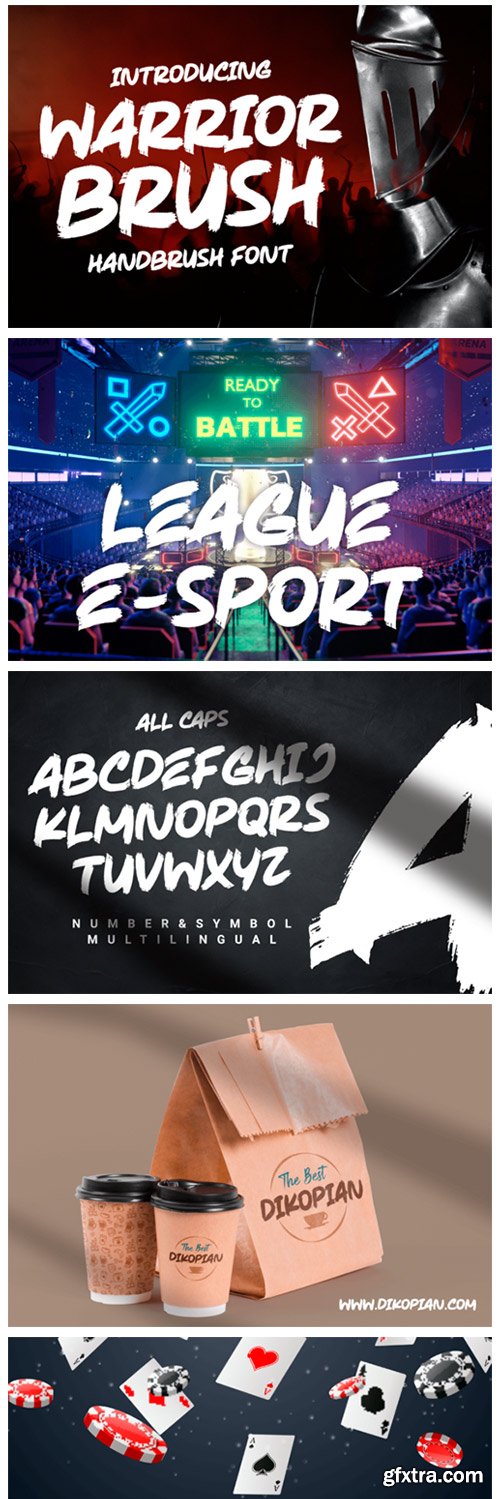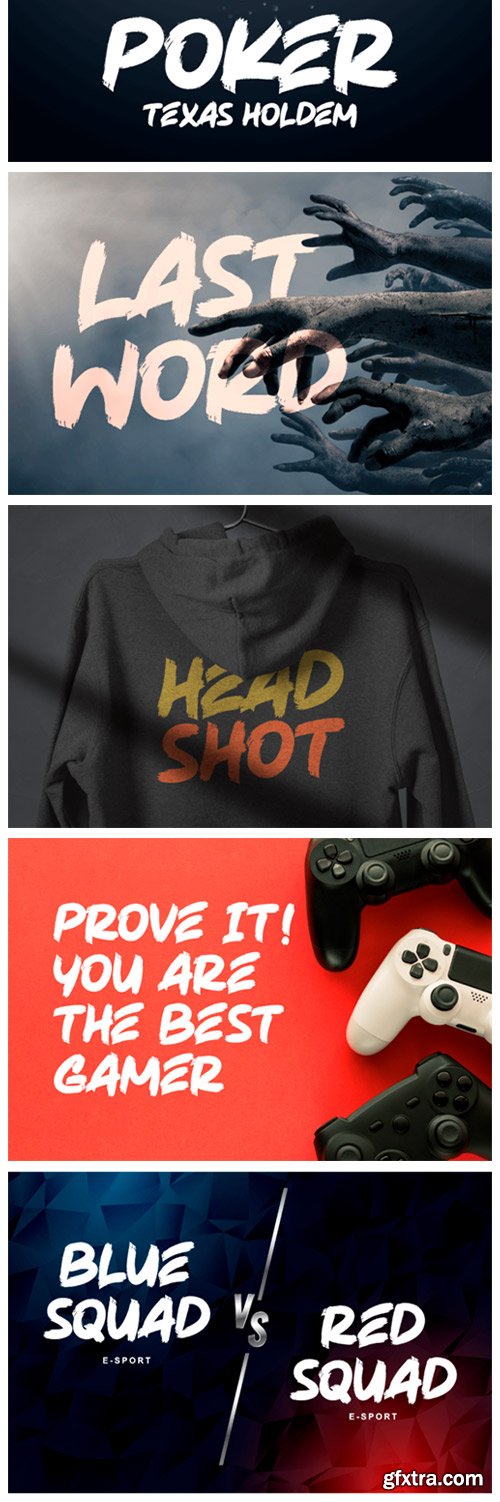
Warrior Brush Font
Warrior Brush is a daring brushed display font. It features an urban vibe and it can be employed to a variety of designs. Have fun with this beautiful font and explore its endless variations.